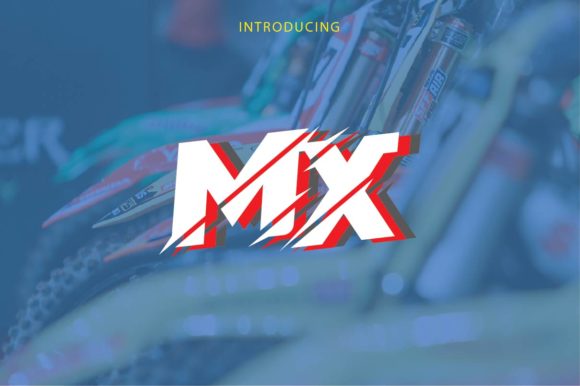
Introducing the MX Font Collection—a Typographical Revolution for Your Creative Endeavors!
Embrace the power of MX Fonts, a captivating sans serif font family that exudes creativity and sophistication. Inspired by the dynamic essence of contemporary design, MX Fonts are crafted to elevate your visual communication, leaving a lasting impression on your audience. Step into a world of boundless possibilities, where your imagination knows no limits.
MX Fonts: The Epitome of Simplicity and Refinement
Experience the beauty of simplicity with MX Fonts, meticulously designed to provide effortless readability and visual harmony. Each character is a masterpiece of clarity, ensuring seamless communication across various platforms and media. Whether crafting captivating headlines, engaging body copy, or creating stunning graphics, MX Fonts are your trusted companion, delivering a polished and professional touch to your projects.
MX Fonts: Unleash Your Creative Genius
Unleash the boundless potential of MX Fonts and transform your creative visions into reality. From sleek and minimal designs to bold and expressive statements, MX Fonts adapt effortlessly to your unique style. Let your creativity flow freely as you explore the endless possibilities, crafting designs that resonate with your audience and leave a lasting impact.
MX Fonts: The Perfect Choice for Banner Design
Step into the realm of banner design and discover the true power of MX Fonts. With their captivating style and contemporary flair, MX Fonts elevate your banners to new heights, capturing attention and igniting curiosity. Create banners that stand out from the crowd, leaving a lasting impression on your audience. Let MX Fonts be your creative ally, helping you craft banners that engage, inform, and inspire.
MX Fonts: Join the Creative Revolution!
Join the growing community of designers, marketers, and creatives who have embraced the transformative power of MX Fonts. Experience the difference that exceptional typography can make, elevating your projects to new heights of visual appeal and impact. With MX Fonts, you're not just downloading a font; you're unlocking a world of creative possibilities, ready to be explored and conquered.